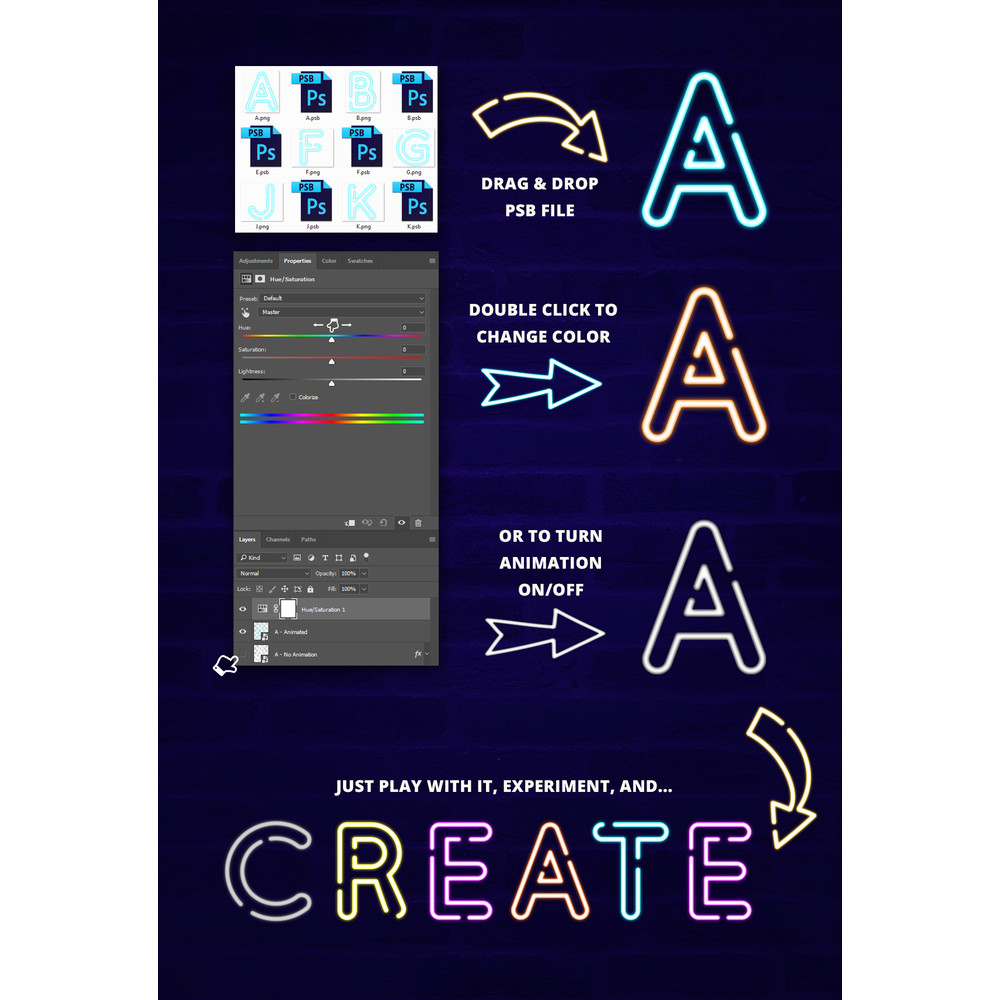
Animated Neon Font For Social Media Story Templates. Neon Social Media Kit. For Snapchat, WhatsApp, Facebook, Messenger.
Boost your social media presence and grab attention with this flashy neon type kit that is fast and easy to use, create engaging videos in minutes or use on of the 15 Bonus pre-made templates to get started or as inspiration. You can save them as videos or as regular photos, whatever floats your boat 🙂
- Full Animated Neon Alphabet (including Numbers and Symbols)
- Neon OTF font